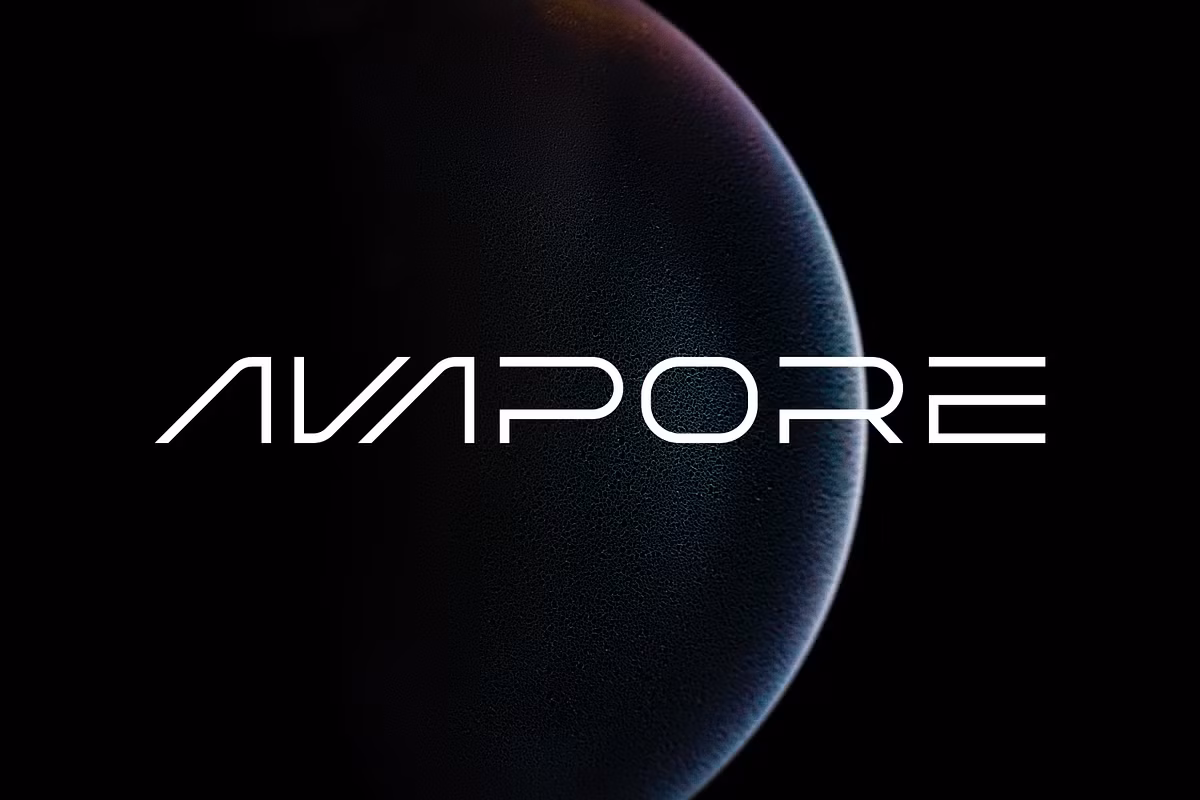
Avapore Technology Font Free Download
Please note, you must purchase this font for commercial use. However, you can easily download Avapore Technology Font Free Download for personal use and testing purposes. Avapore Technology Font is a sleek, futuristic typeface designed to give your designs a modern, high-tech feel. Perfect for tech-related projects, websites, product branding, and digital marketing, this font combines sharp, clean lines with a contemporary edge. Avapore Technology Font Free Download is ideal for conveying innovation and cutting-edge designs in fields such as technology, gaming, and digital startups. Whether you're creating a logo for a tech company or designing a promotional campaign for a futuristic product, this font will elevate your designs with a strong, professional presence. Download Avapore Technology Font Free Download today and explore its potential before opting for a commercial license.